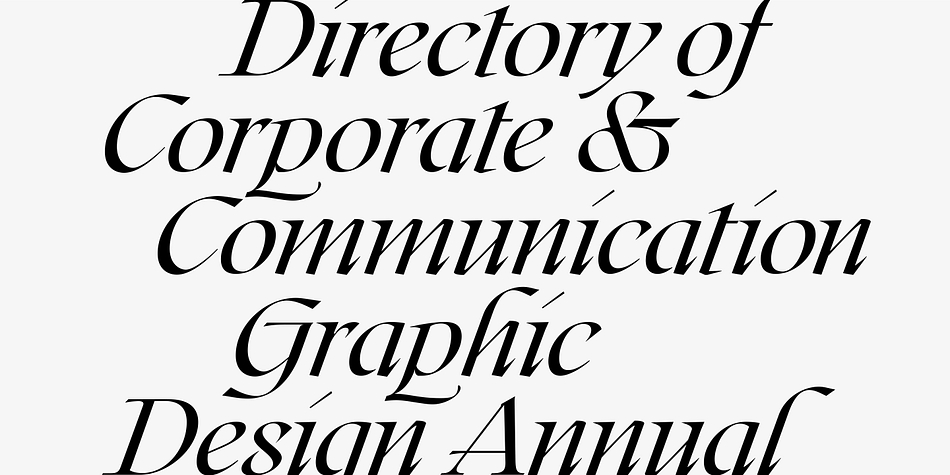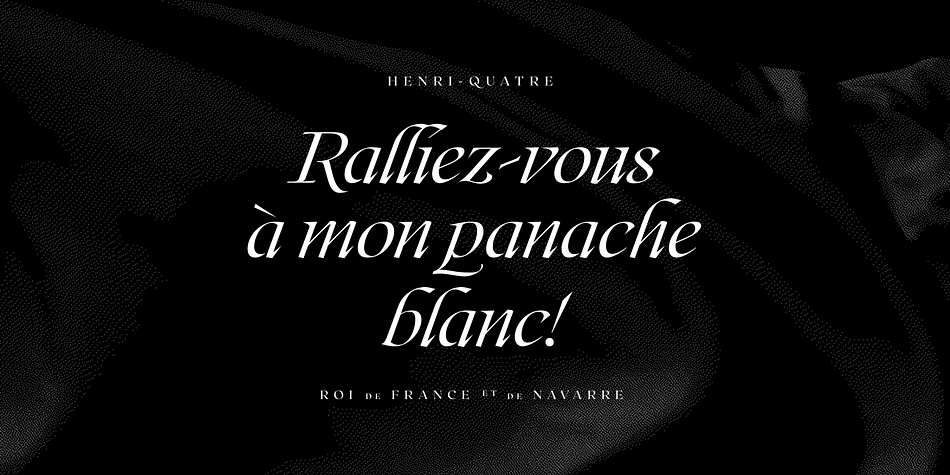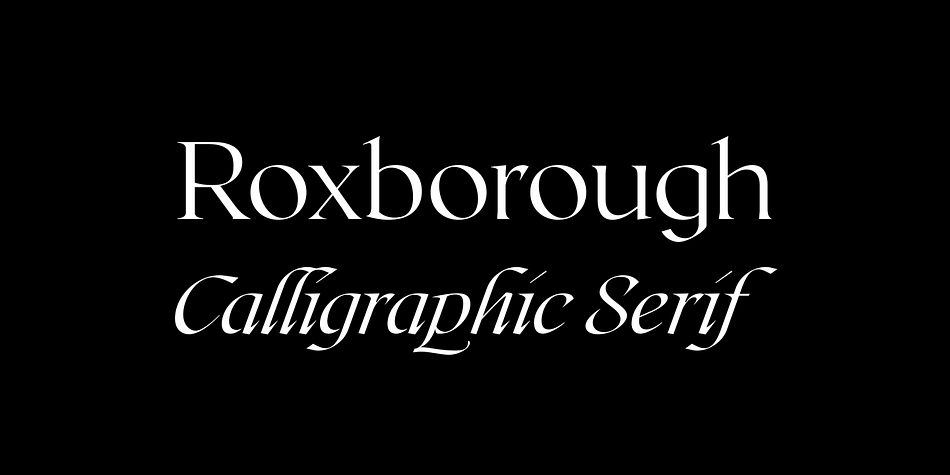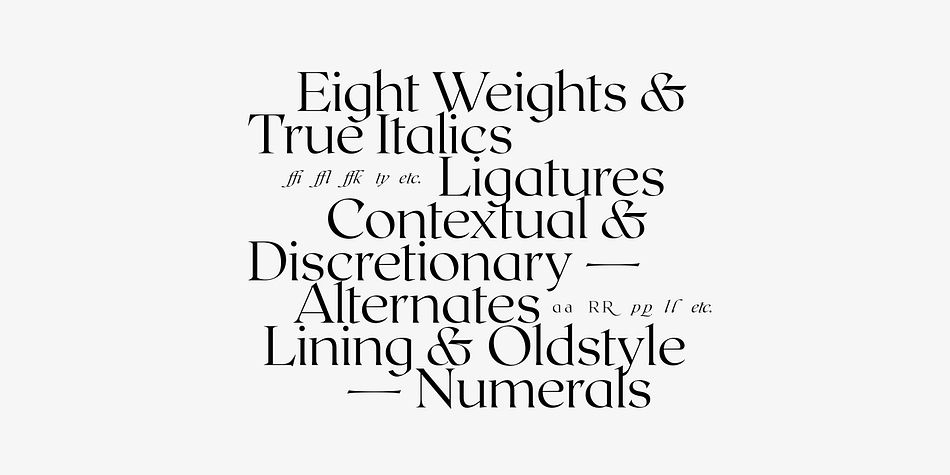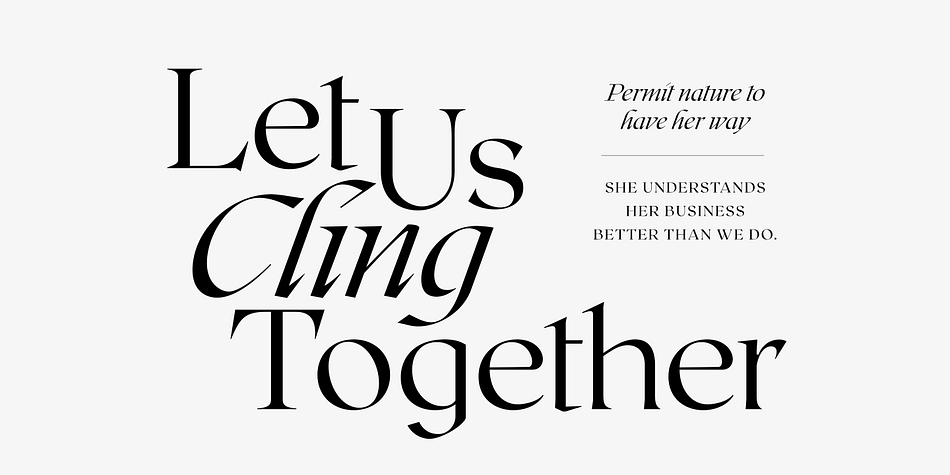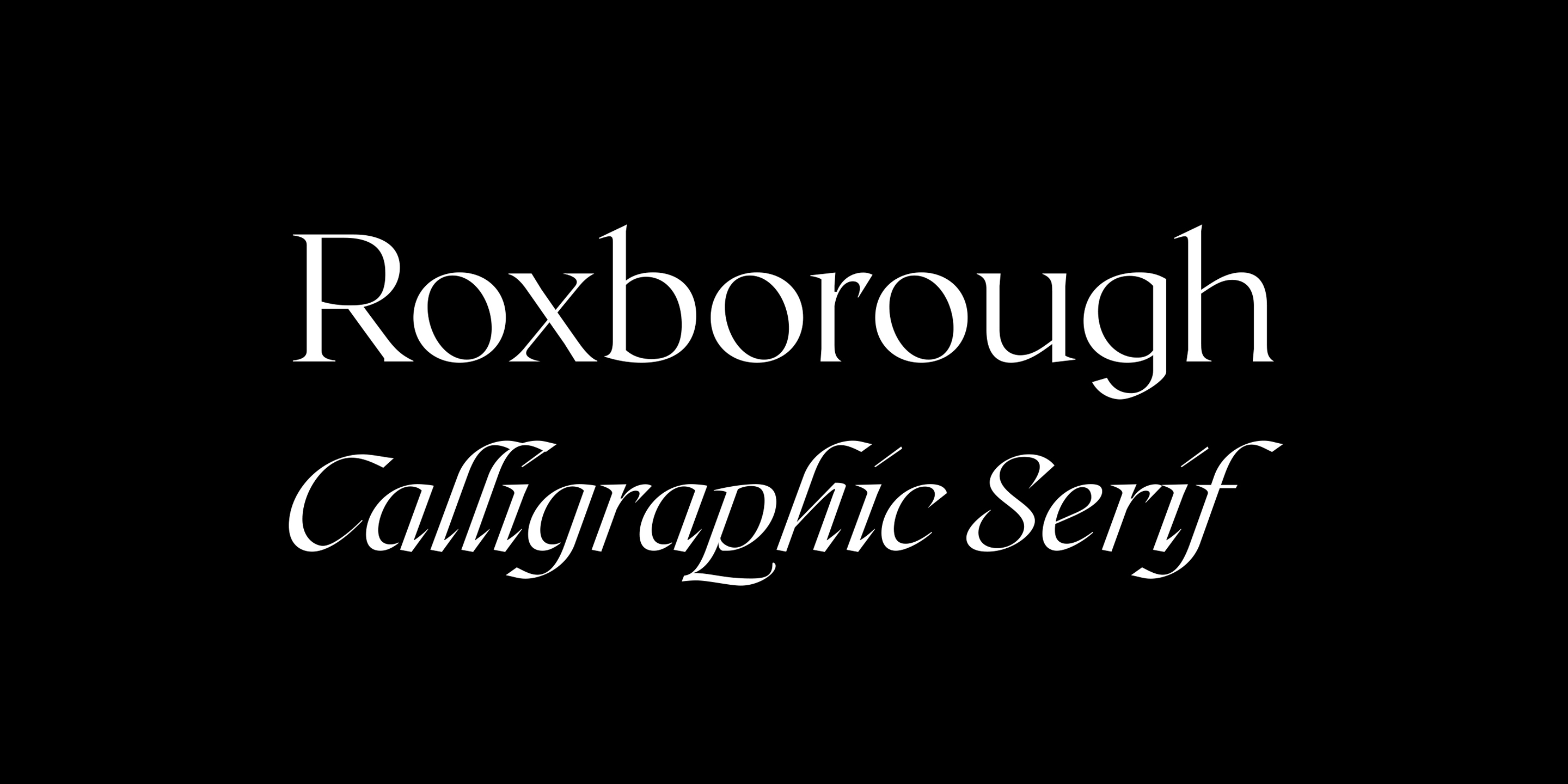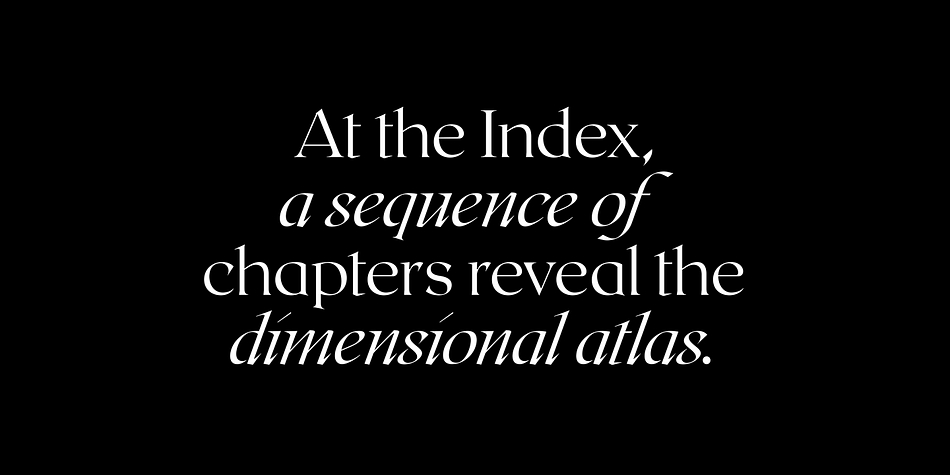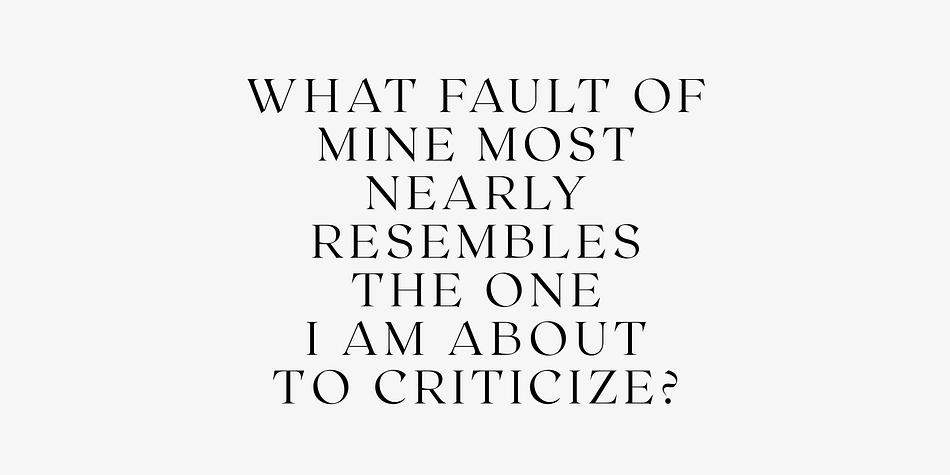
Designed by Connary Fagen, Roxborough CF is a serif font family. This typeface has sixteen styles and was published by Connary Fagen Type Design.
Roxborough is a dramatic, voguish serif, influenced by calligraphy and hand lettering. Rich, open construction – built around a distinctive single-storey “a” – pairs nicely with the stylized, expressive italics. Both traditional and chic, Roxborough transforms text into art; it adapts to many applications, including branding and identity design, display and packaging design, subtitles, and copy.
Features include:
- Eight weights
- Calligraphy-inspired italics
- OpenType alternates and ligatures
- Lining and oldstyle numerals
- Extensive Latin-script multilingual support